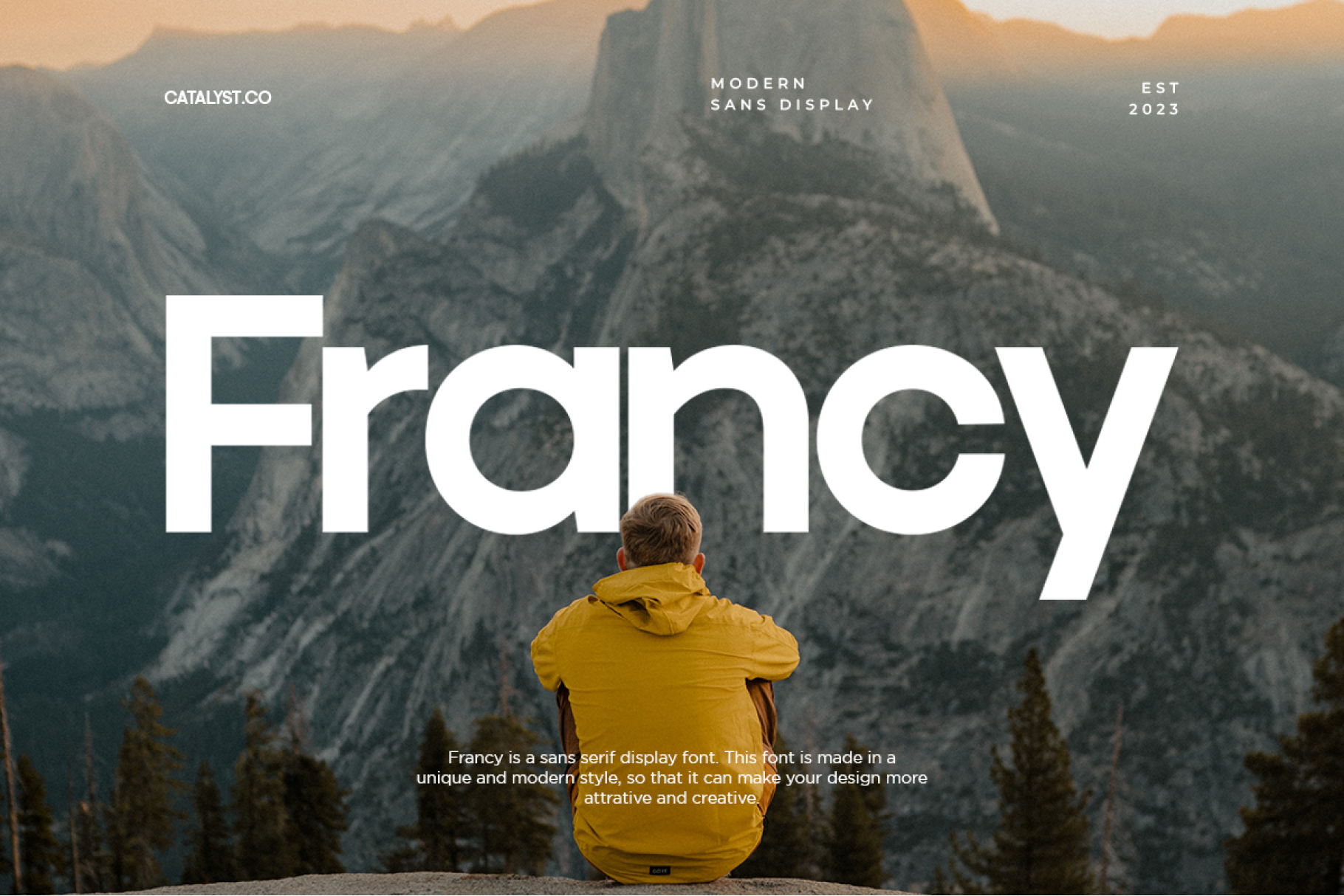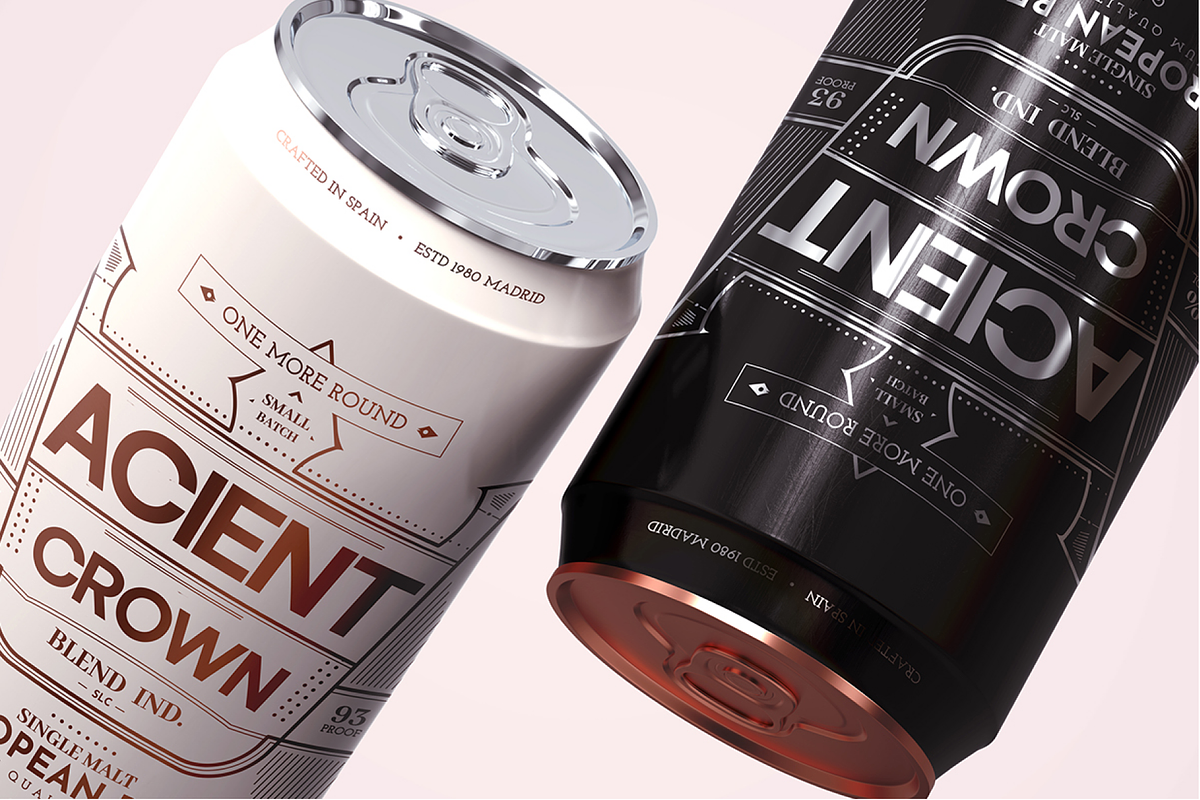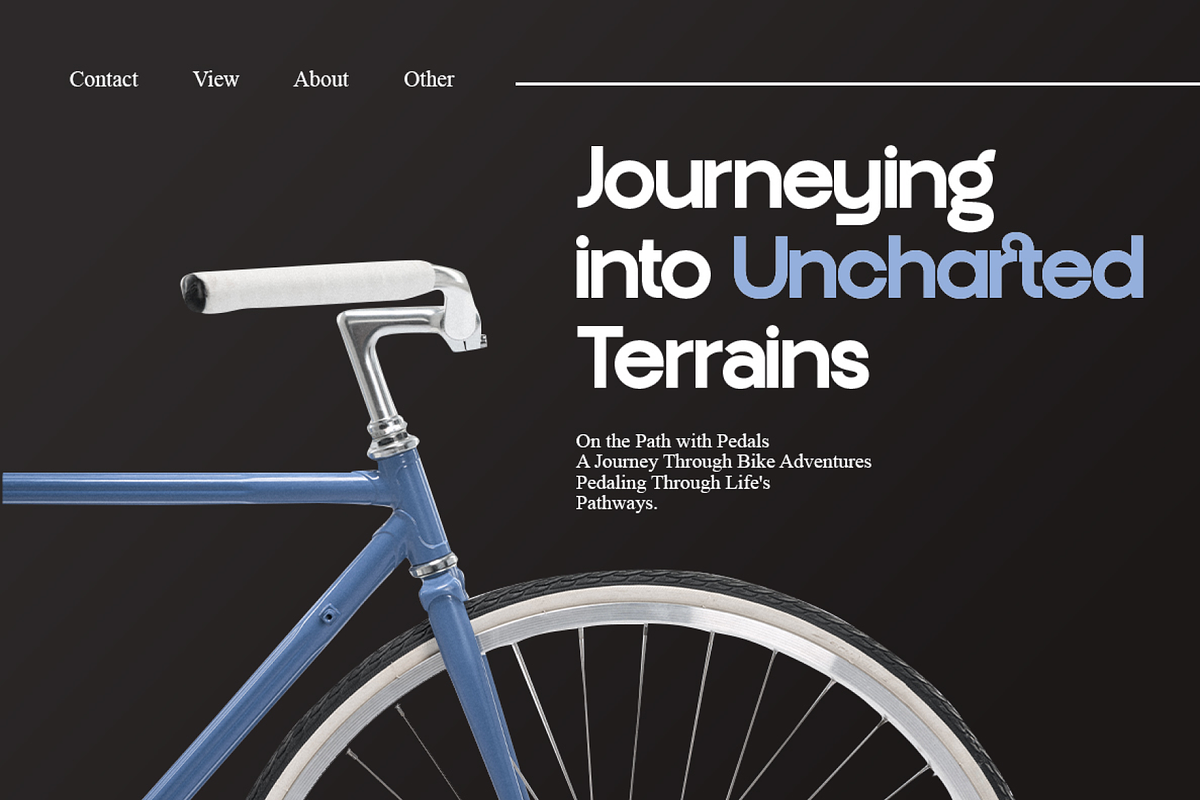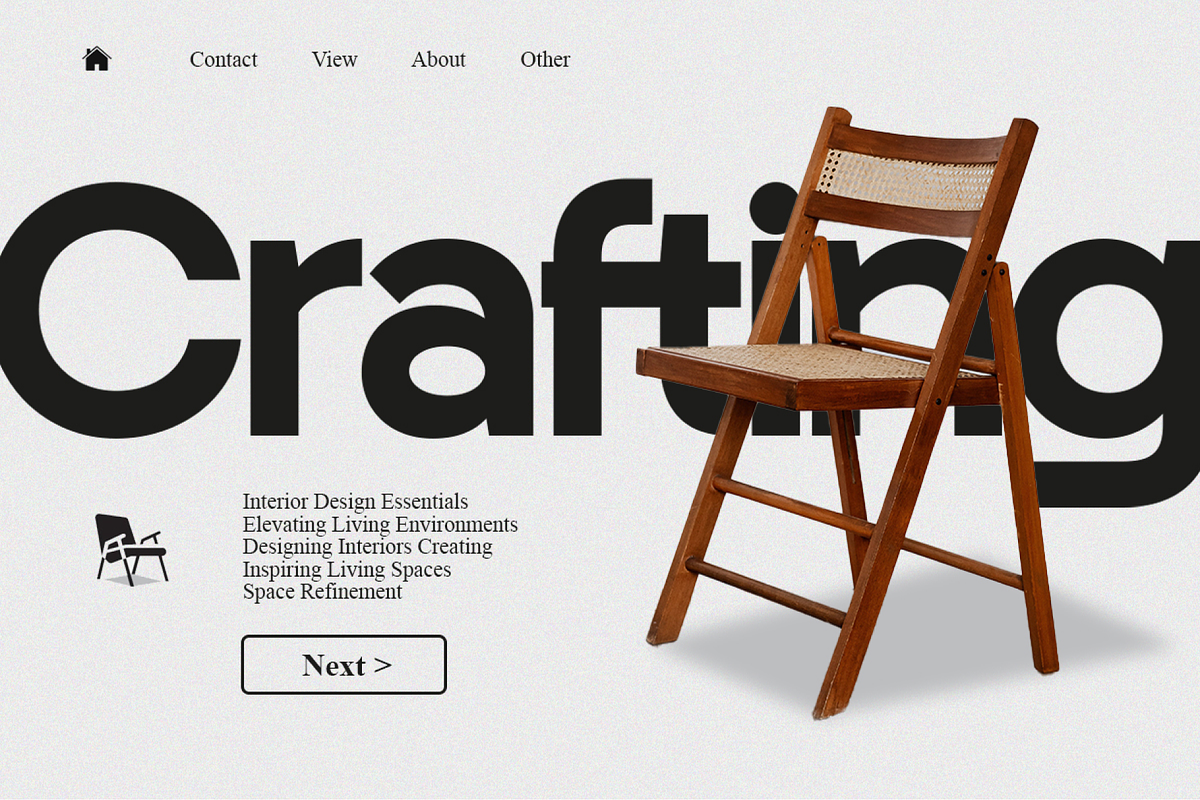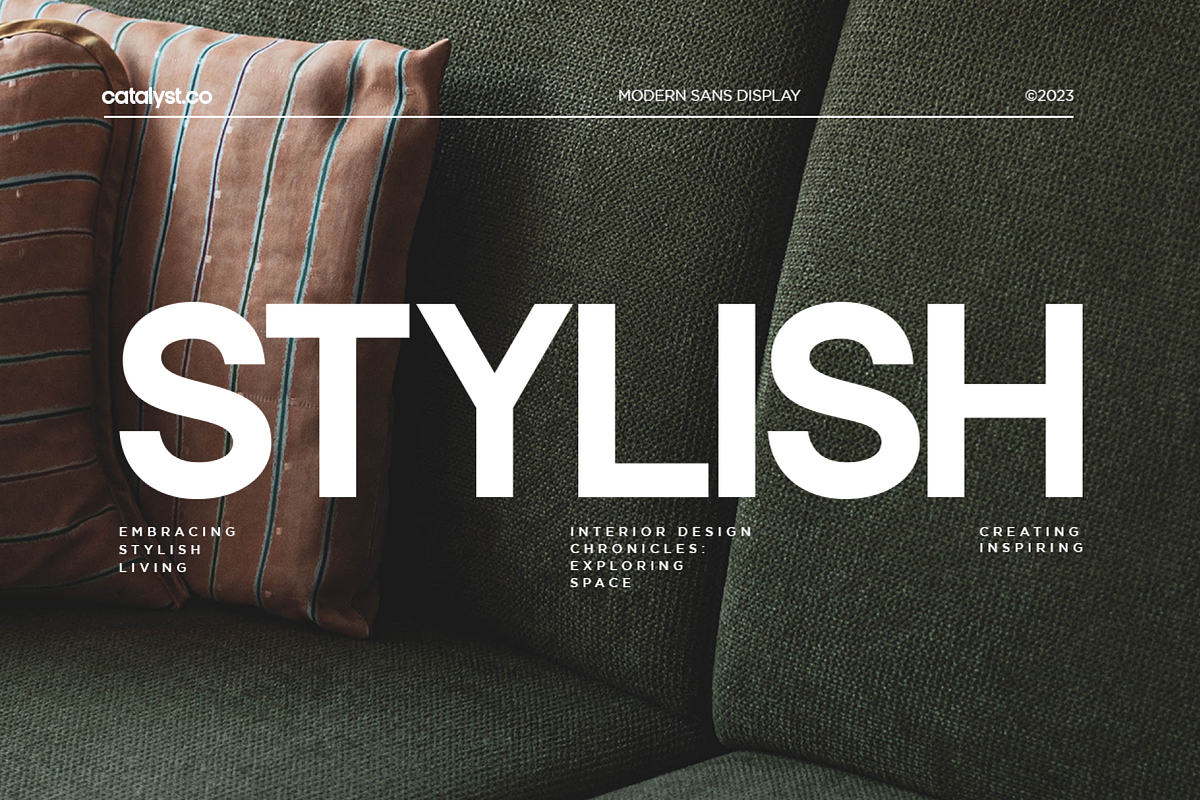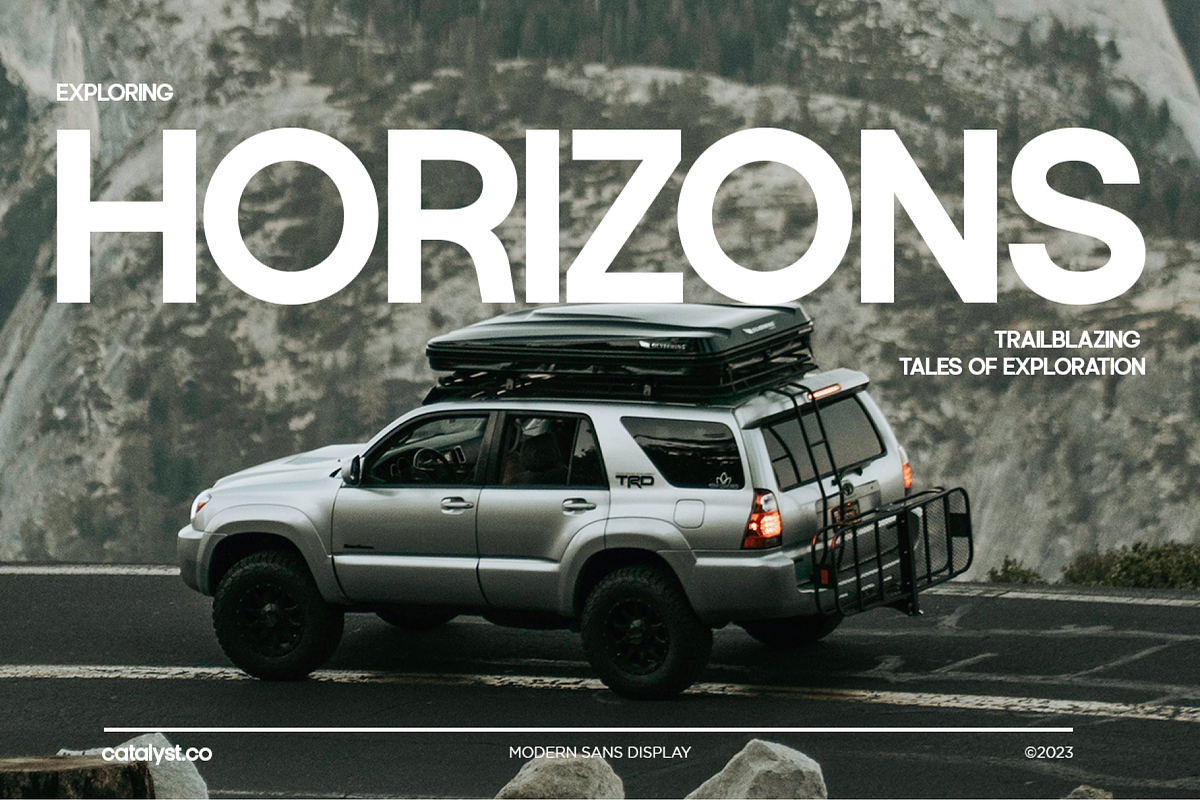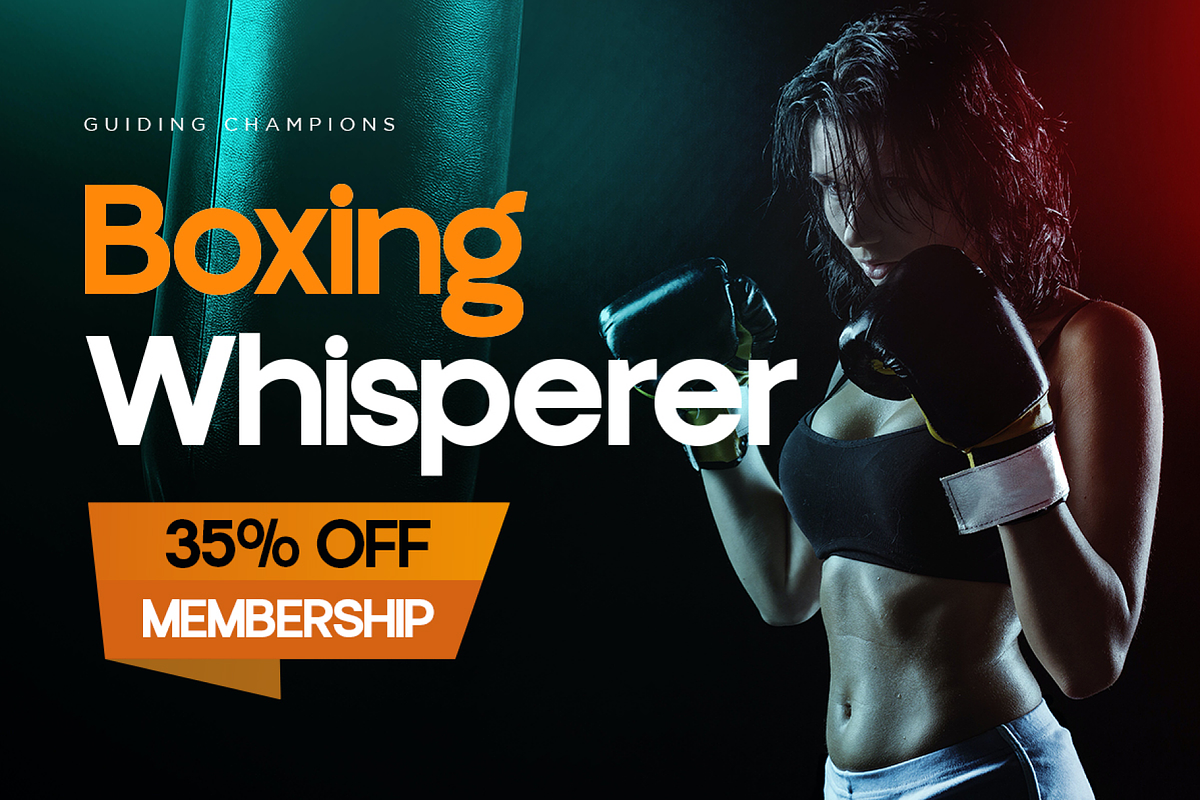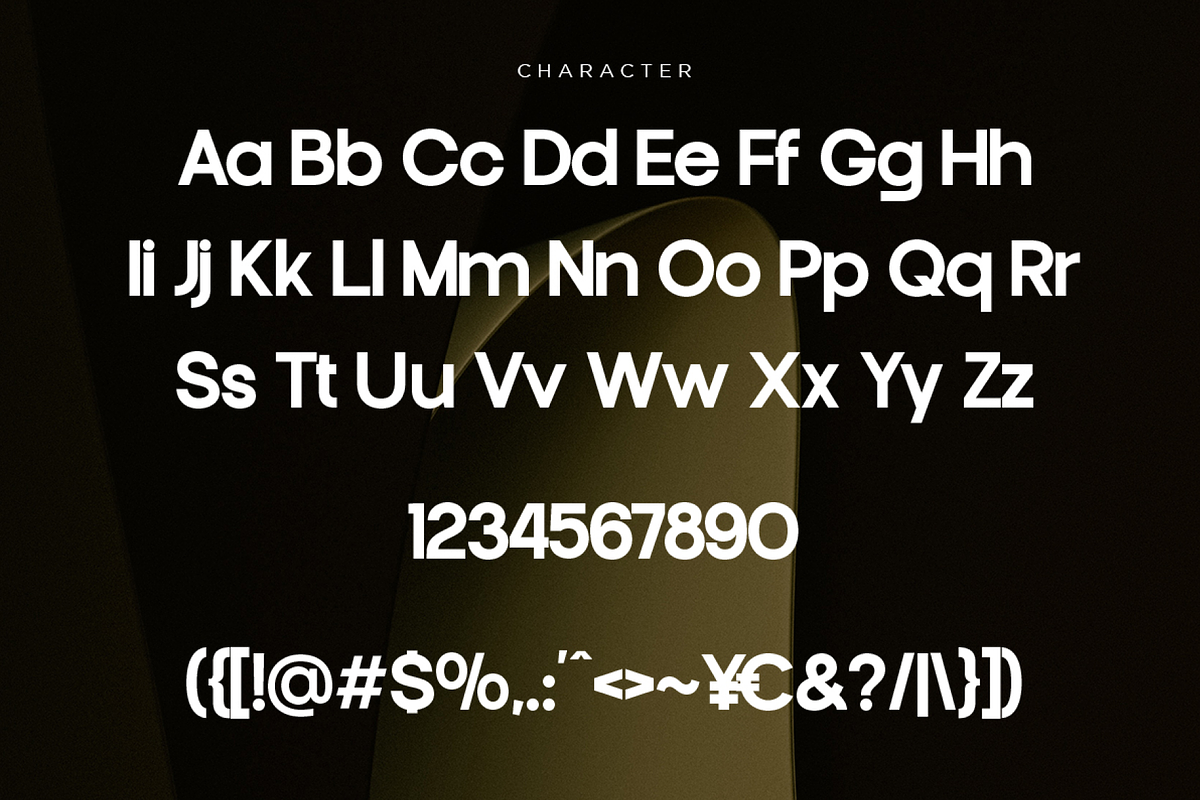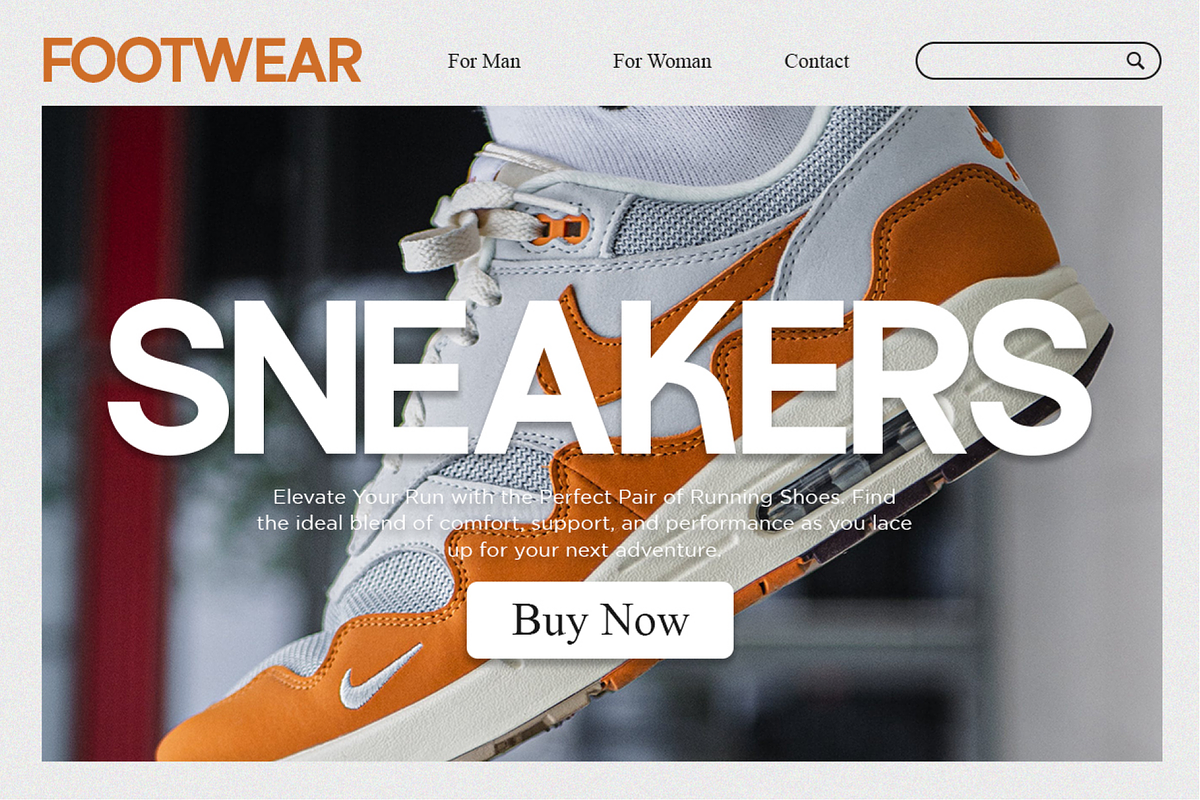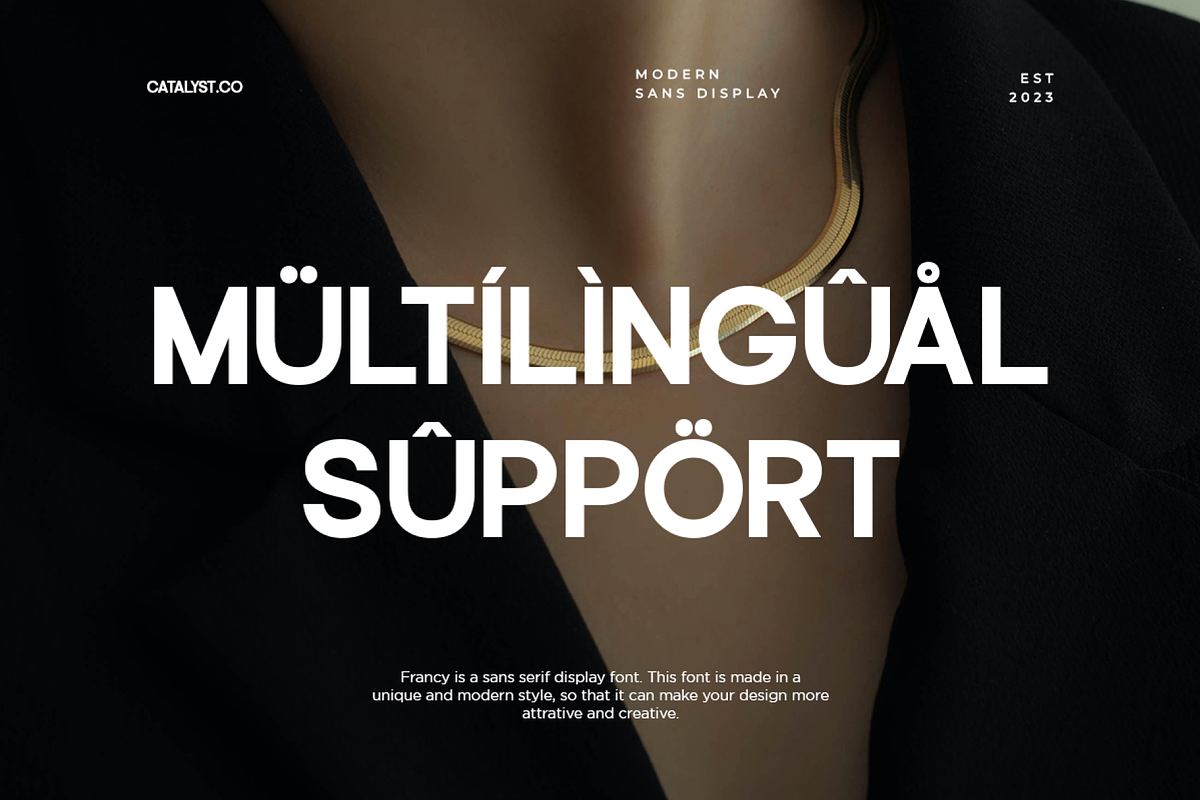
Francy Modern Sans Display Font
Francy Modern Sans Display Font typeface excellent used for the manufacture quote text, logotype, header magazine, and many more.
- Ligatures & Alternate
- Numeral & Punctuations